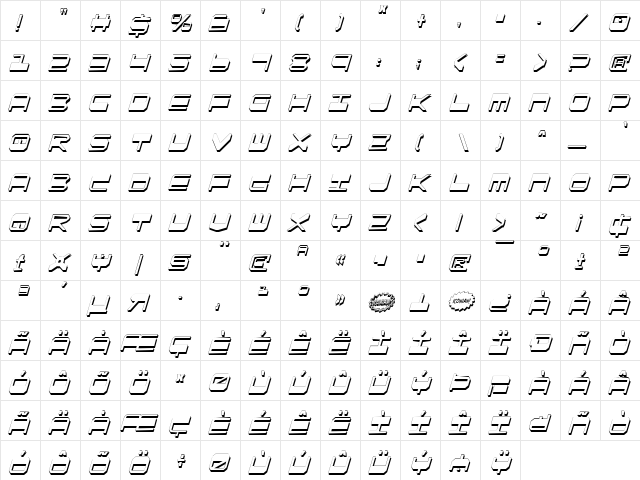
QuickGear Shadow ItalCon Shadow ItalCon
Design Context for QuickGear Shadow ItalCon Typeface
QuickGear Shadow ItalCon brings ornamental detail and strong personality to headlines and identities, where visual impact matters more than quiet functionality.
Font Pairing: Pair with a clean neutral sans-serif for body copy to let QuickGear Shadow ItalCon's character lead without overwhelming the composition.
Pro Tip: Use QuickGear Shadow ItalCon exclusively at display sizes — it was designed to be seen, not read at length. Let a neutral companion handle body copy.